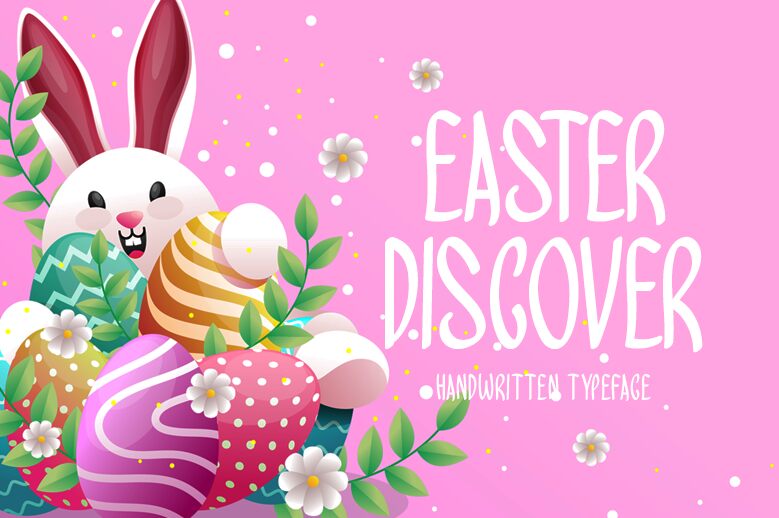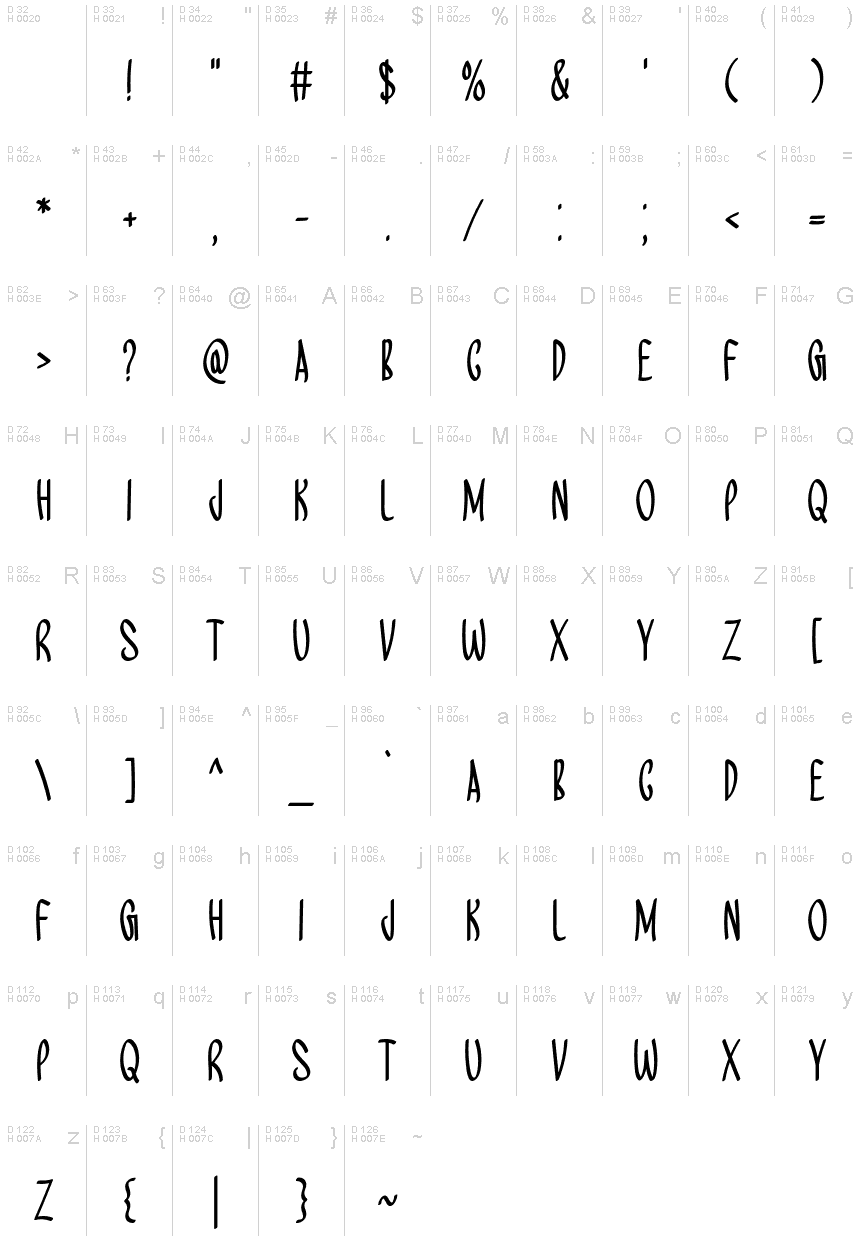
Easter Discover
Easter Discover, designed by Md Shohail Bhuian, is a charming handwritten font with a semi-light weight and extra-condensed width.
Its playful and whimsical style makes it perfect for children's book covers, greeting cards, and party invitations. The unique hand-drawn look of Easter Discover adds a touch of warmth and personalization to any design project. Whether you're creating a website for an arts and crafts blog or designing packaging for an artisanal chocolate brand, this delightful font will bring a sense of joy and creativity to your work.